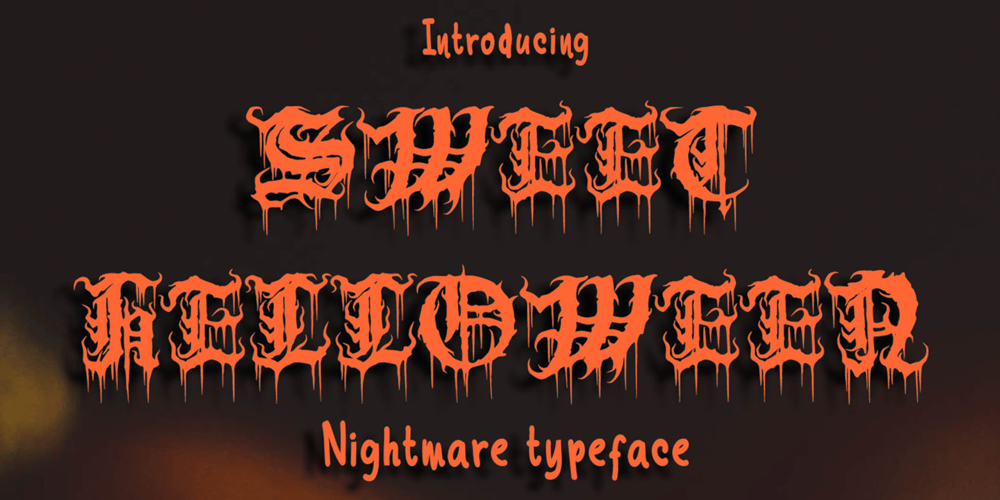
Sweet Helloween Font Family was designed by published by Ayyara Letterindo. Sweet Helloween contains 1 styles and family package options. Sweet Helloween is an incredibly cool and spooky blackletter font. This font is correct for Halloween project, Games, T-shirt Design, projects where you need some word with special letters, spooky stories, cards, notices, gift cards, wrapping paper,Halloween cover template for gift and anything your amazing project.This font is containt upper case, lower case, number and punction to make you more easy and that need scary and daring typography!